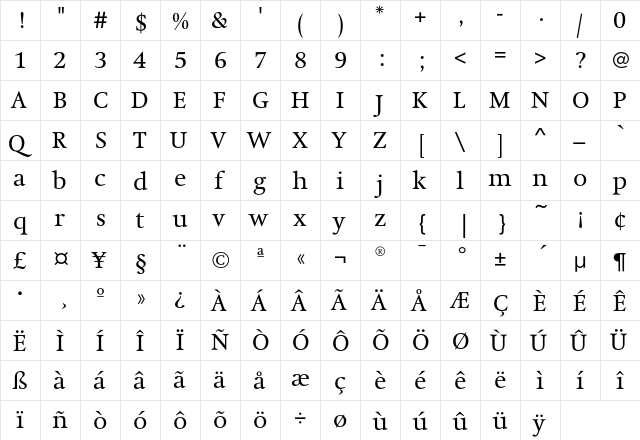
HollanderEF-Regular Regular
Design Context for HollanderEF-Regular Typeface
HollanderEF-Regular offers clean, dependable letterforms without strong stylistic allegiance, making it a practical choice for designers who need flexibility.